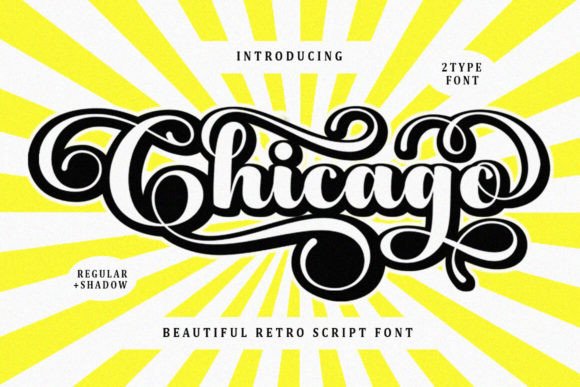
Introducing the Chicago Font, a captivating and versatile display font designed by Reyna Studio. Immerse yourself in the spirit of yesteryear with this bold retro script that effortlessly adds character to your designs. Whether you're creating a Cricut banner or any other project, this font is guaranteed to elevate your creativity to new heights.
With its extrude version, achieving a retro effect has never been easier. The Chicago Font offers endless possibilities for application, making it perfect for logos, invitations, labels, magazines, books, and so much more. Let your imagination run wild as you explore the limitless potential of this exquisite typeface.
Not only does the Chicago Font boast stunning aesthetics, but it also offers unrivaled functionality. Thanks to its PUA encoding, accessing the wide array of amazing glyphs and ligatures is a breeze. Say goodbye to limitations and unlock the full potential of your designs effortlessly.
Embrace the power of nostalgia and infuse your projects with a touch of vintage elegance. The Chicago Font lends a timeless charm to any creative endeavor, whether it's a wedding card, packaging design, fashion project, or even a novel cover. Stand out from the crowd and leave a lasting impression with this captivating font.